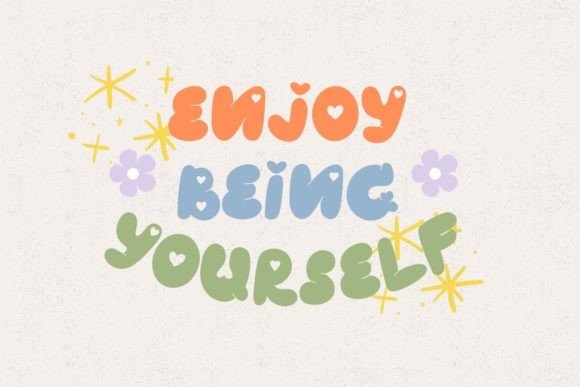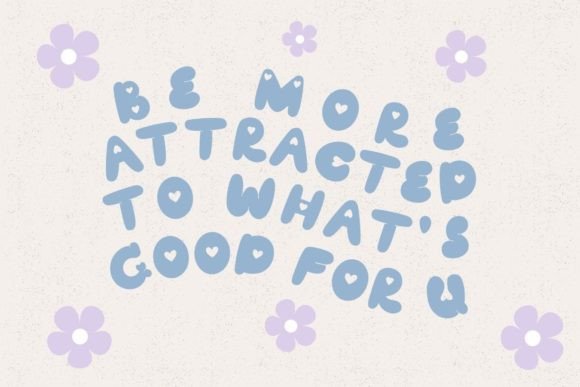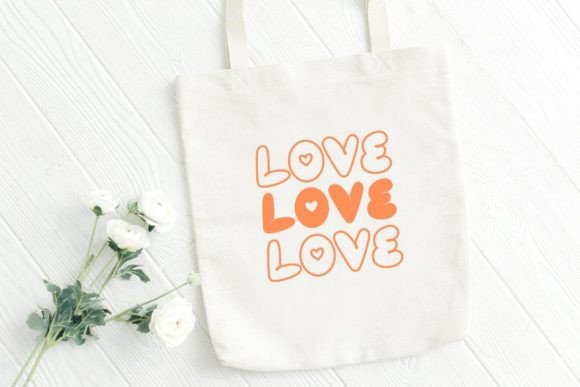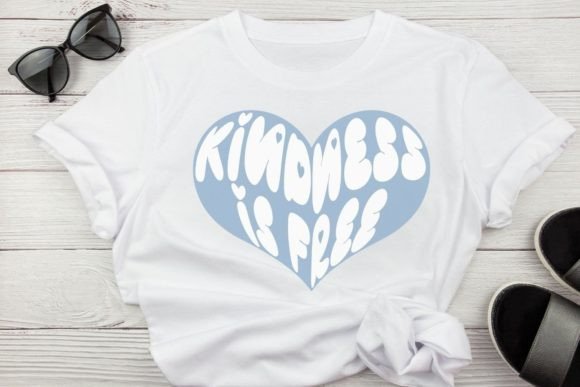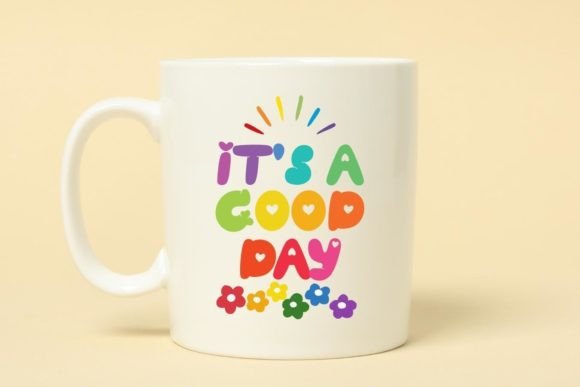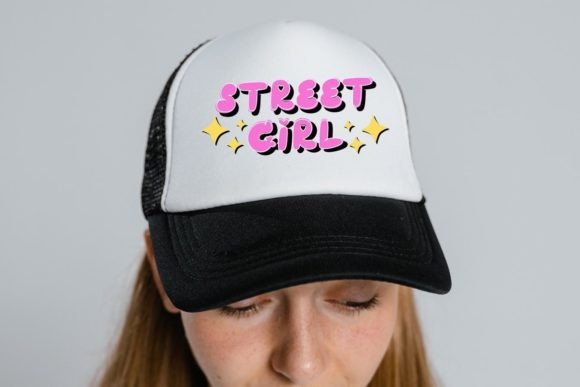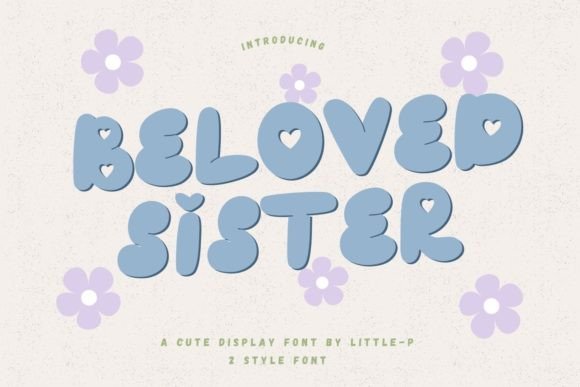
Introducing Beloved Sister: The Playful Display Font That Steals Hearts
Have you ever been in the middle of a design project, and suddenly, you’re stuck on finding the perfect font? I recall a recent experience where I was working on a fun social media campaign for a client, and I just couldn’t find a font that captured the playful, yet modern vibe I was going for. That’s when I stumbled upon “Beloved Sister,” a charming display font that instantly won me over with its cute look and modern style.
The Font That Stole My Heart
Beloved Sister is more than just a font; it’s a design element that can instantly elevate your creations with its adorable heart details and chubby letterforms. This font comes in two styles: Regular and Outline, offering versatility for various design projects. Whether you’re crafting eye-catching posters, engaging social media posts, captivating logos, contemporary designs, or vibrant T-shirt sublimation graphics, Beloved Sister is sure to bring your ideas to life with its charming and unique personality.
- ✨ Cute and Modern Aesthetic: The font’s design is both adorable and contemporary, making it perfect for projects that require a playful touch.
- ✅ Versatility: With two font styles (Regular and Outline), you can use Beloved Sister for a wide range of projects, from digital designs to print materials.
While Beloved Sister is an excellent font, there are a few things to keep in mind:
- ⚠️ Legibility at Small Sizes: Like many display fonts, Beloved Sister may not be the best choice for body text or small font sizes, as some details might get lost.
- 🤔 Overuse: Given its playful nature, it’s easy to overuse Beloved Sister in a single design. Balance is key to ensuring your design doesn’t become too overwhelming.
- Take advantage of OpenType features, glyphs, and stylistic alternates to customize your text. For example, you can use the glyph panel in Illustrator to access additional heart symbols or alternate letterforms.
The Inspiration Behind Beloved Sister
Beloved Sister was designed with the intention of creating a font that embodies both playfulness and modernity. The designer aimed to craft a typeface that would be perfect for projects requiring a touch of whimsy and charm. Inspired by the joy of sisterhood and the beauty of everyday moments, Beloved Sister brings a sense of warmth and friendliness to any design.
Q: What type of projects is Beloved Sister best suited for?
Beloved Sister is ideal for designs that require a playful and modern touch, such as social media graphics, posters, logos, and T-shirt sublimation graphics.
Q: Does Beloved Sister support OpenType features?
Yes, Beloved Sister supports OpenType features, including glyphs and stylistic alternates, allowing for a high level of customization in your designs.
Q: Can I use Beloved Sister in both digital and print designs?
Absolutely! Beloved Sister is versatile and can be used in both digital and print projects, making it a great addition to your font library.